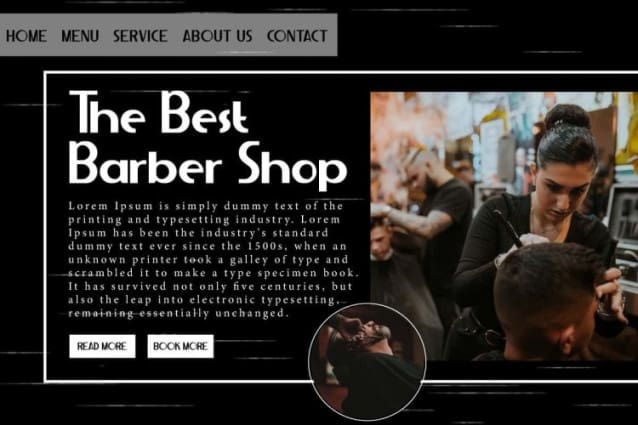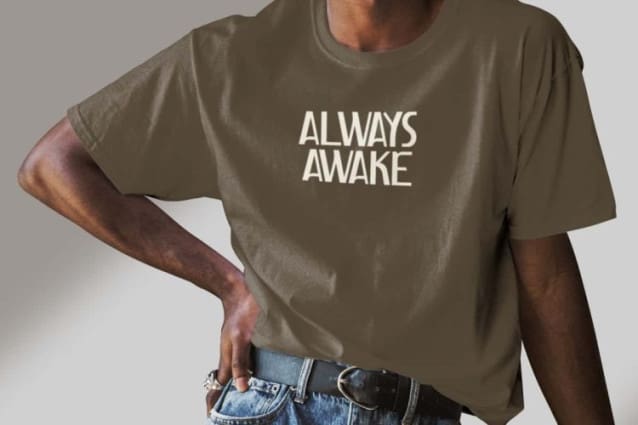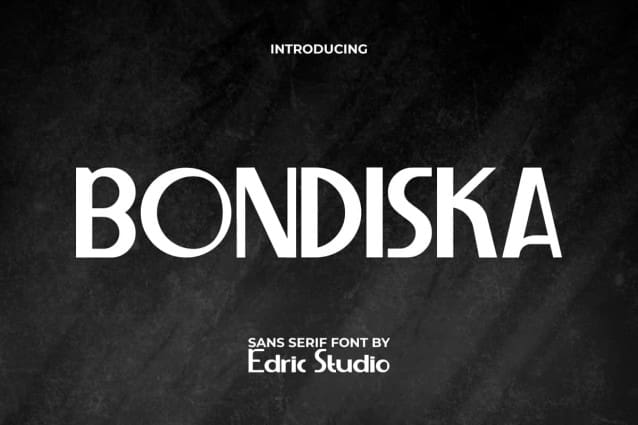
Bondiska Font
Bondiska Font is a sans serif display font with trendy style and it can fit in many design projects, so it can make any display stand out and attract attention. It will be suitable for any industry or business, such as accessories, art, barber shop, café, entertainment, event organizer, fashion, handicraft, photography, printing, publishing, writer, and many more!
Bondiska Font comes with full set of Uppercase and Lowercase Basic Characters, Number, a large range of Punctuation, and Symbol. It has a attractive characters set, perfectly managed with well spaced and kerning. Bondiska Font will be able to complement for any design (with extended license) including: brand image, cover, custom design, label, merchandise, packaging design, poster, quote, screen print, signage, stationery, sticker, title, website, etc.